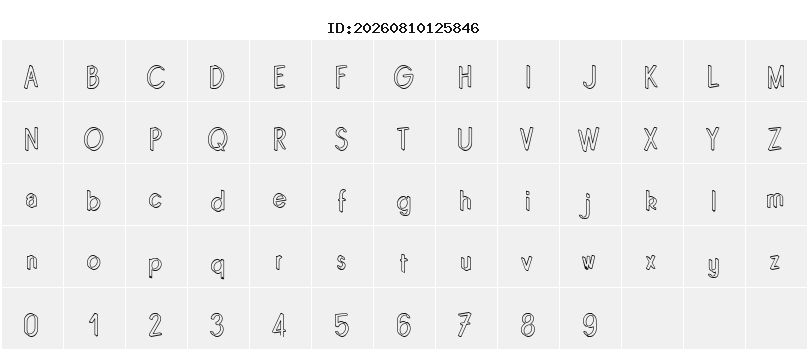
Quincaille Preview
• Font Name: Quincaille
• Font Style: Outline
• Font ID: Fontographer 4.7 Quincaille Outline
• Full Font Name: Quincaille Outline
• Version: Fontographer 4.7 25/01/12 FG4M­0000002045
• PostScript Name: QuincailleOutline
• Character Count: 116
About Quincaille.ttf
Quincaille.ttf is a modern, elegant sans-serif font designed for ultimate readability and visual harmony. Perfect for branding, headlines, web design, and print materials.